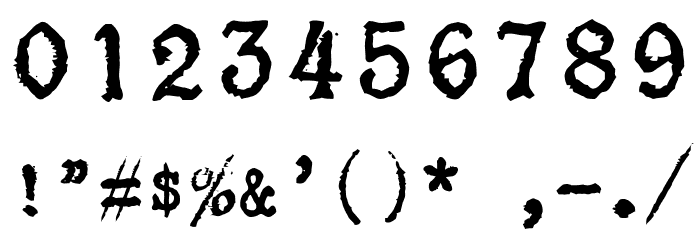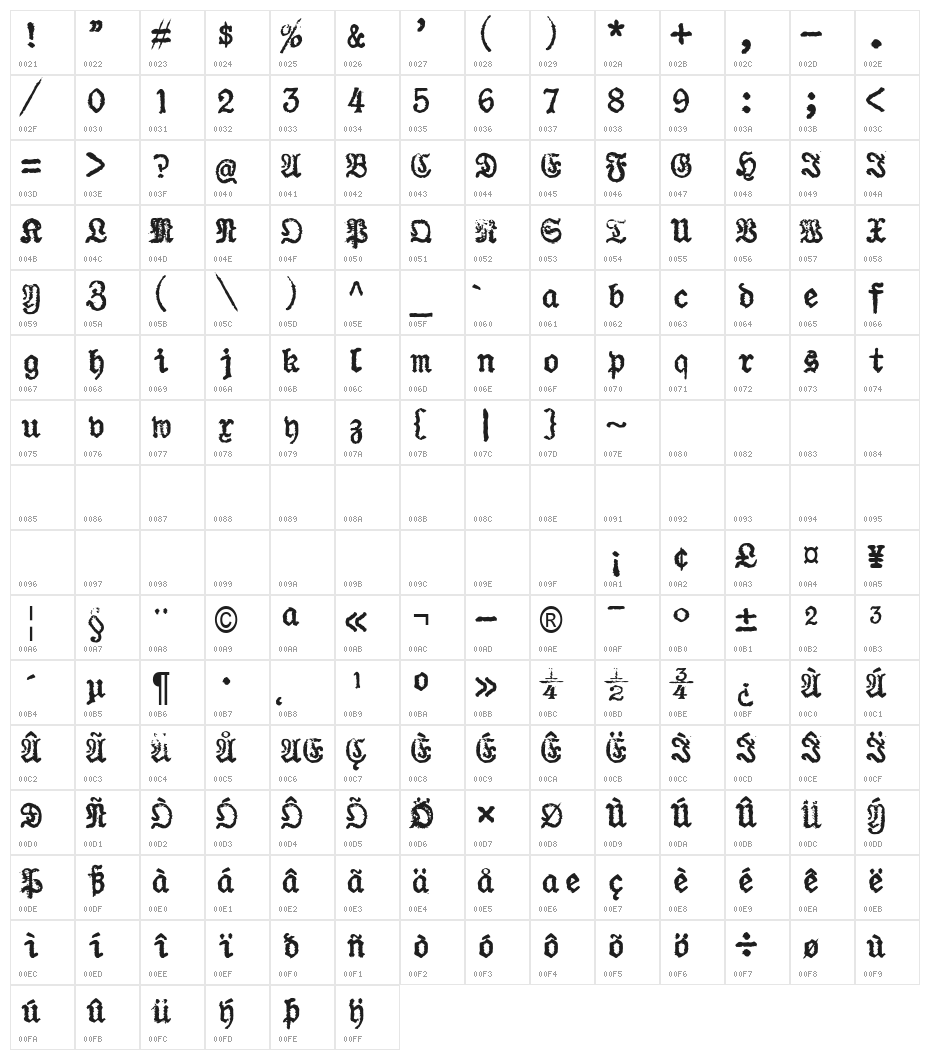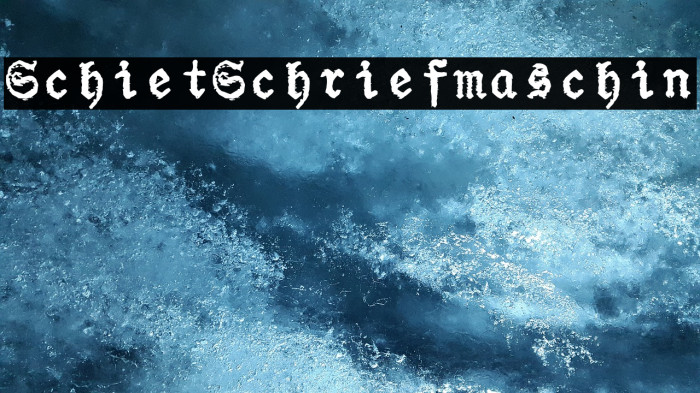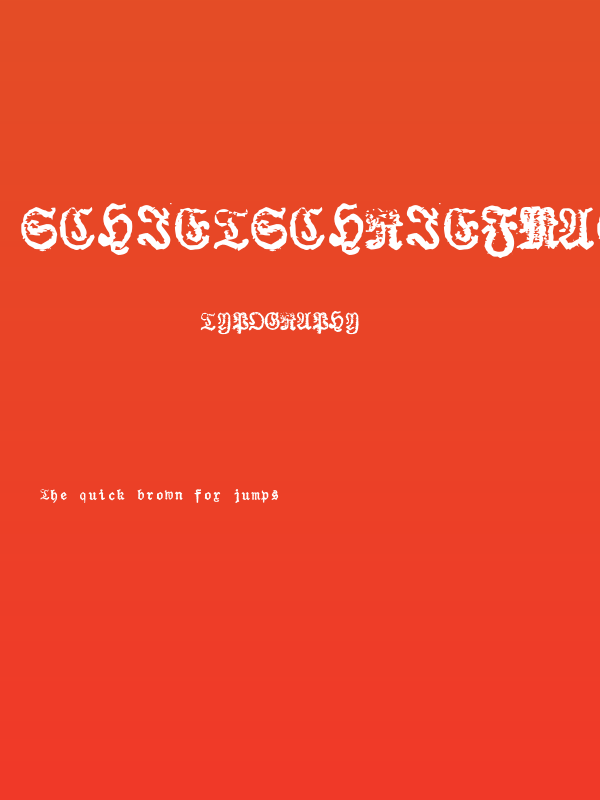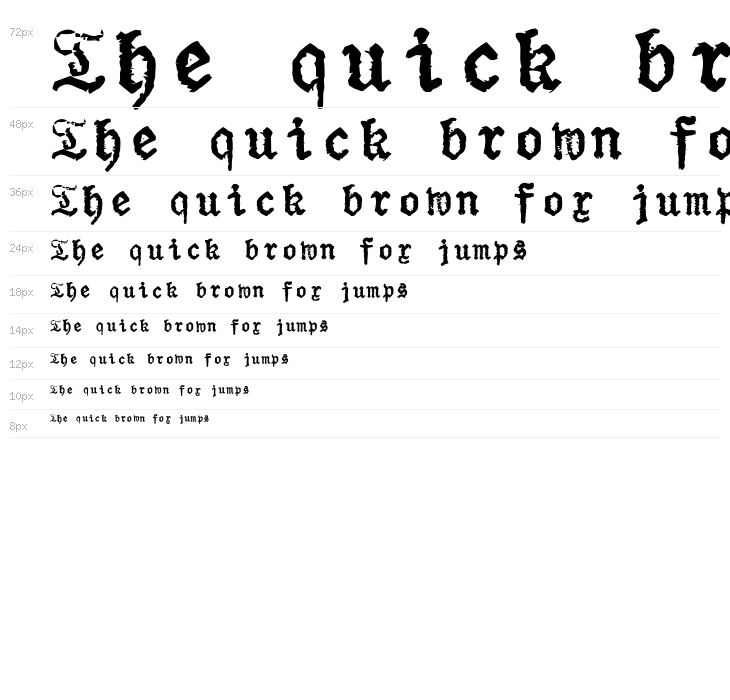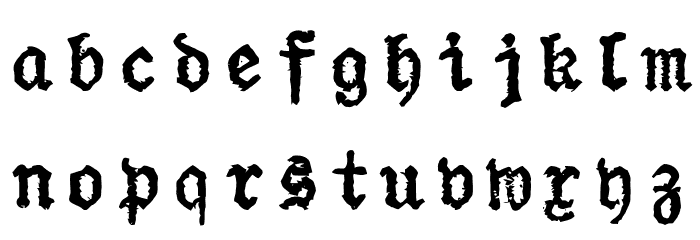
SchietSchriefmaschin Font
SchietSchriefmaschin Description
This font exudes a vintage and gothic charm, characterized by its intricate and bold blackletter style. The uppercase letters are ornate, with elaborate flourishes and sharp angles, giving them a dramatic and historical appearance. The lowercase letters maintain this decorative style but are slightly more subdued, allowing for readability while retaining the overall aesthetic. Numbers and special characters follow the same ornate design, ensuring consistency across all glyphs. The font's texture appears slightly distressed, adding to its aged and historical feel. This font is perfect for projects that require a touch of antiquity and elegance, such as historical documents, themed events, or artistic designs.
| Overall Style | Vintage |
| Use Case | Logos, Headlines, Artistic designs |
| Proposed Projects | Ideal for historical documents, themed event invitations, artistic designs, and branding that requires a vintage touch. |